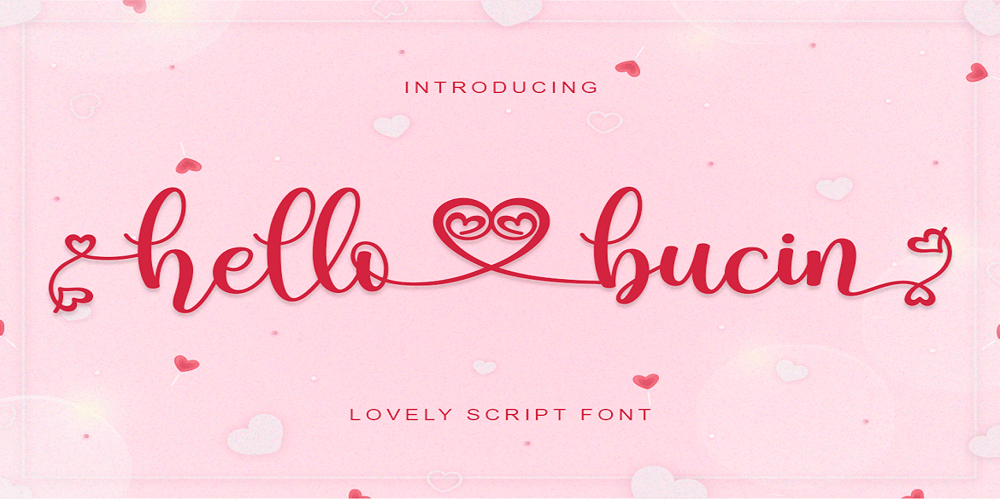
Hello Bucin
Hello Bucin font
Hello Bucin Font Family was designed by Saiful Anwar and published by Sealoung. Hello Bucin contains 1 styles and family package options. Hello Bucin feels equally romantic and whimsical. It looks lovely on wedding invitations, thank you cards, quotes, greeting cards, logos, business cards and every other design which needs a handwritten touch. This font is PUA encoded which means you can access all of the glyphs and swashes with ease! It features a varying baseline, smooth lines, gorgeous glyphs and stunning alternates.